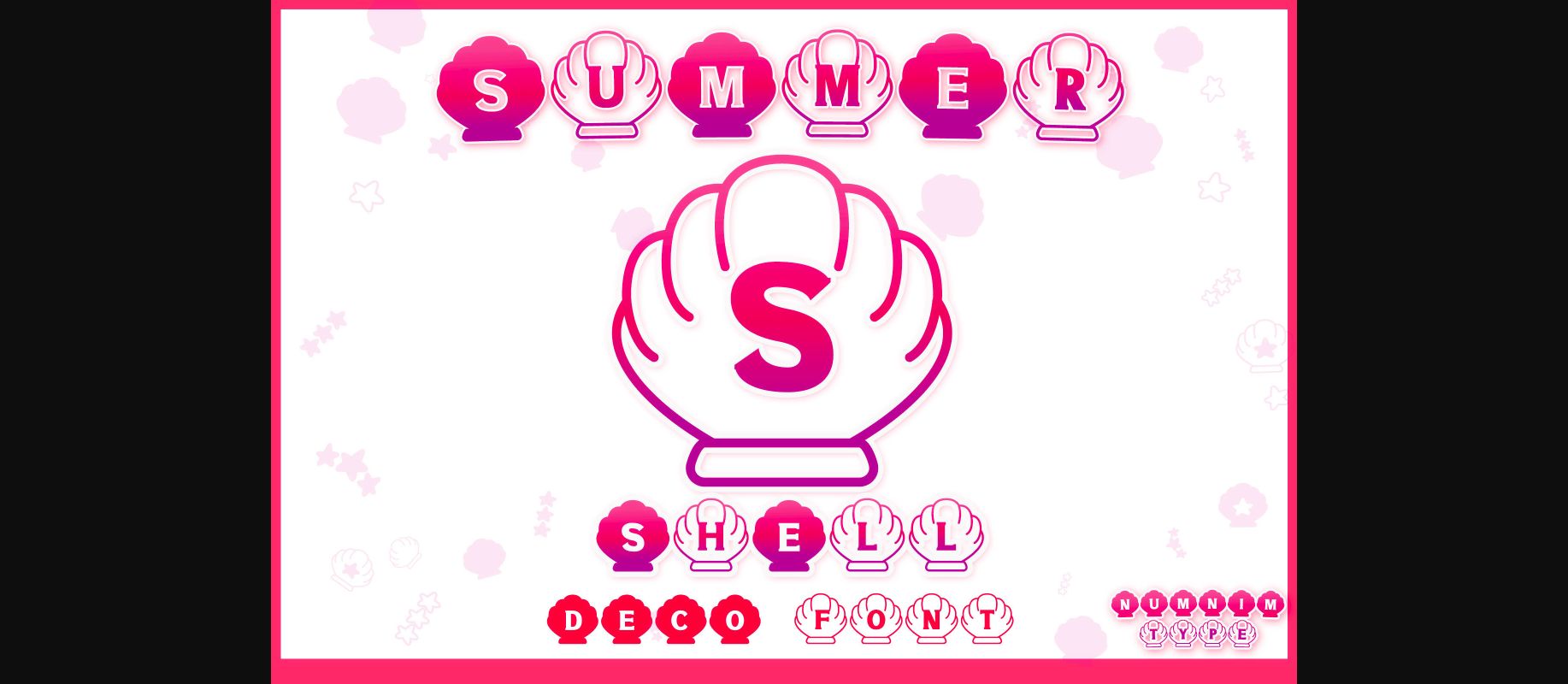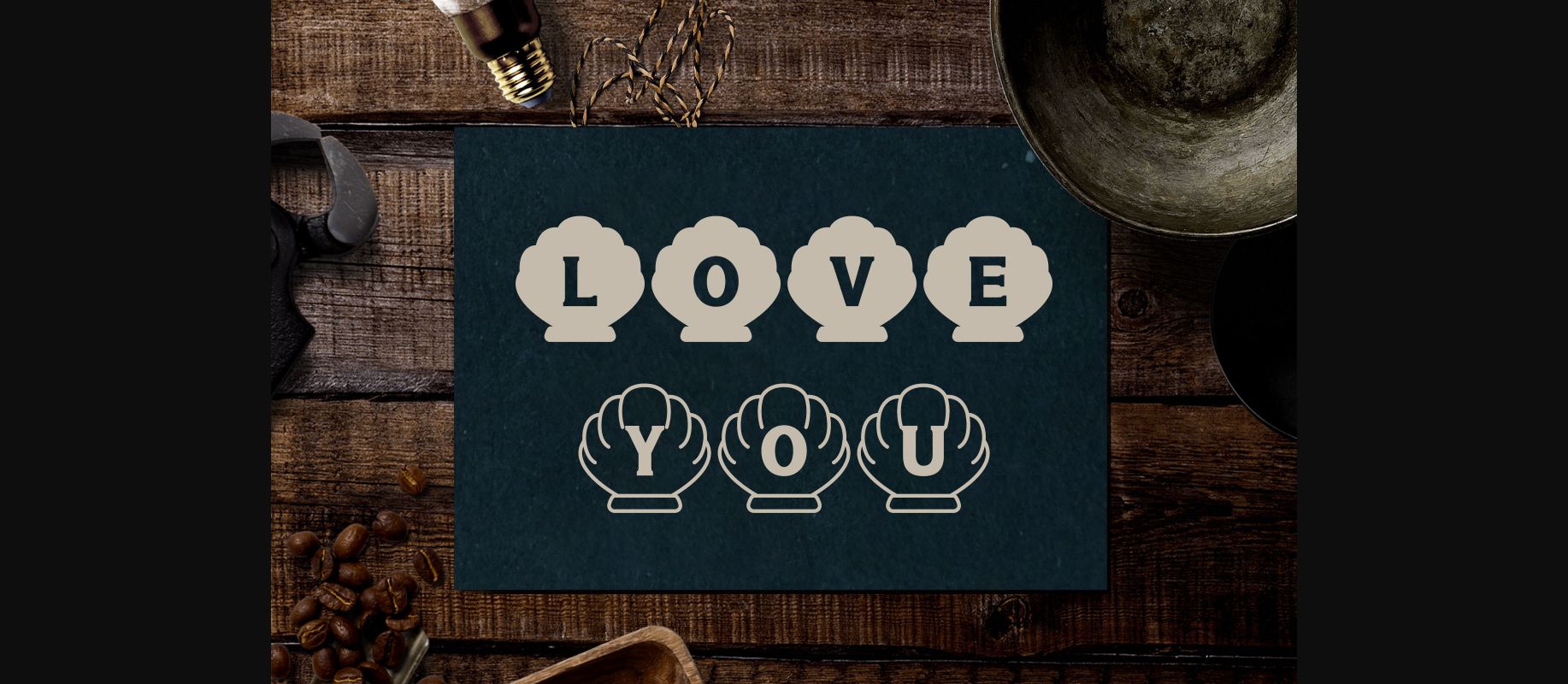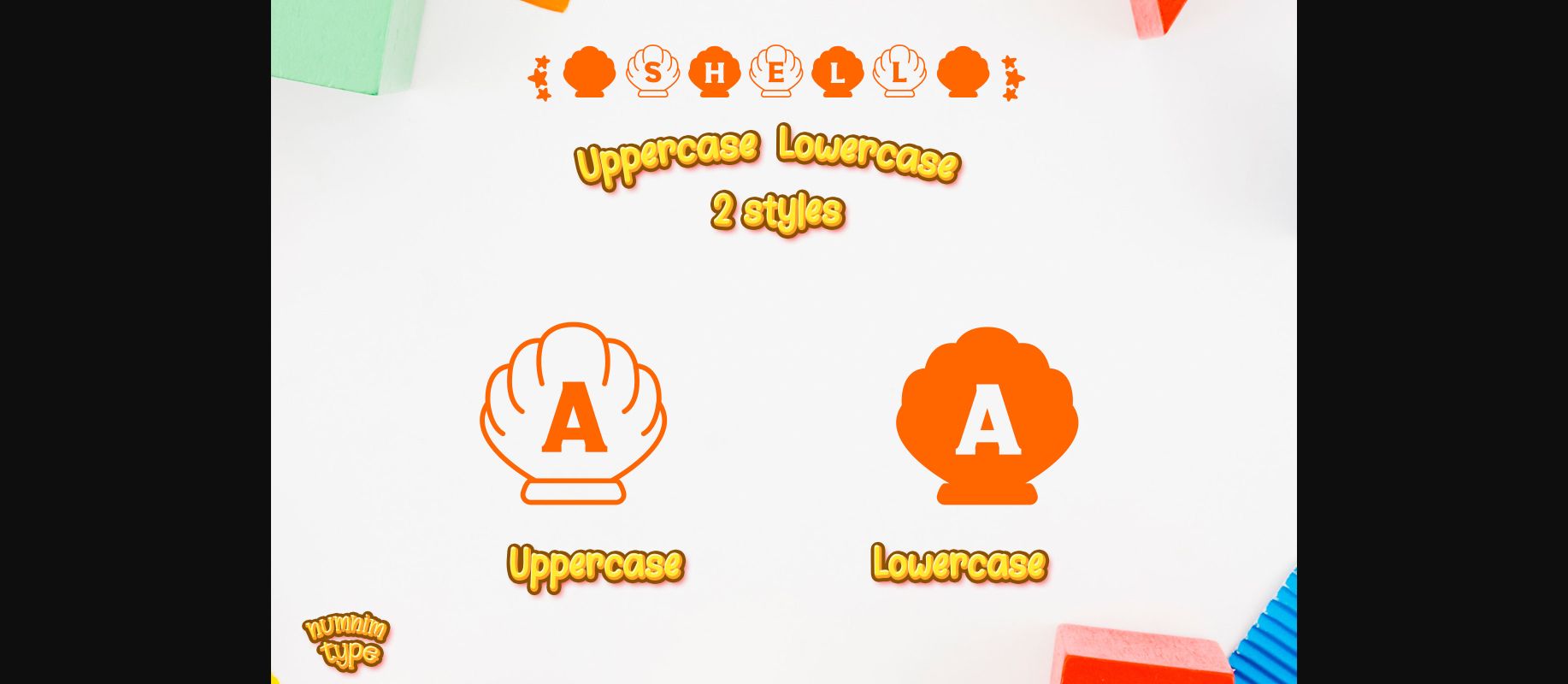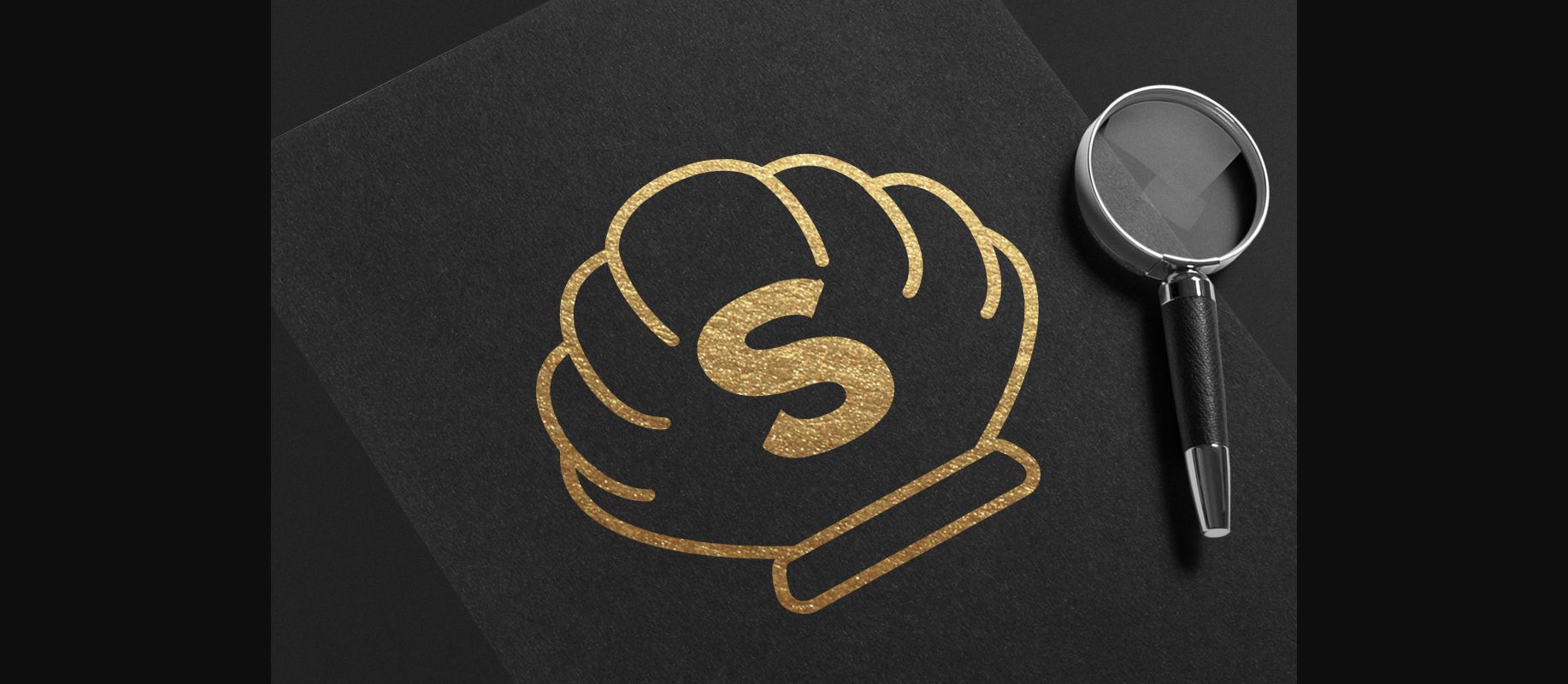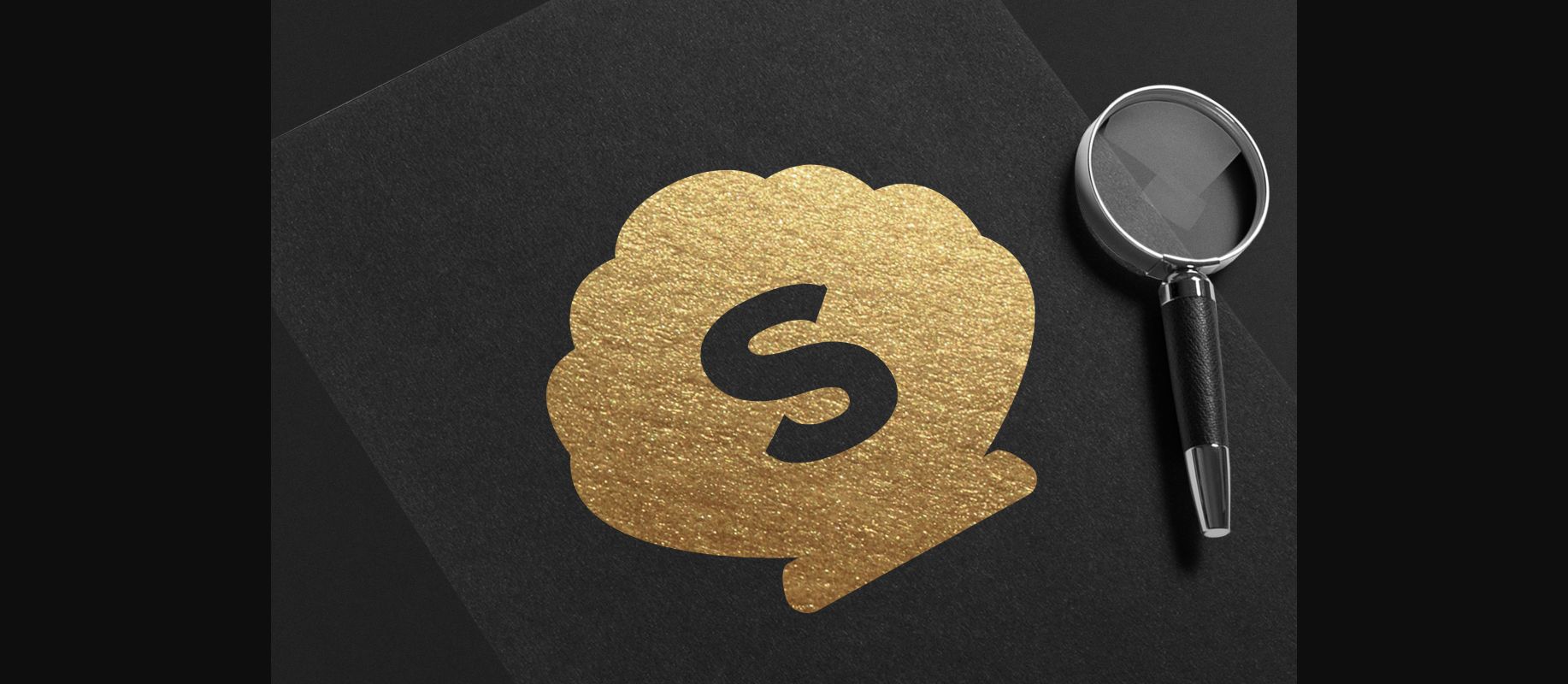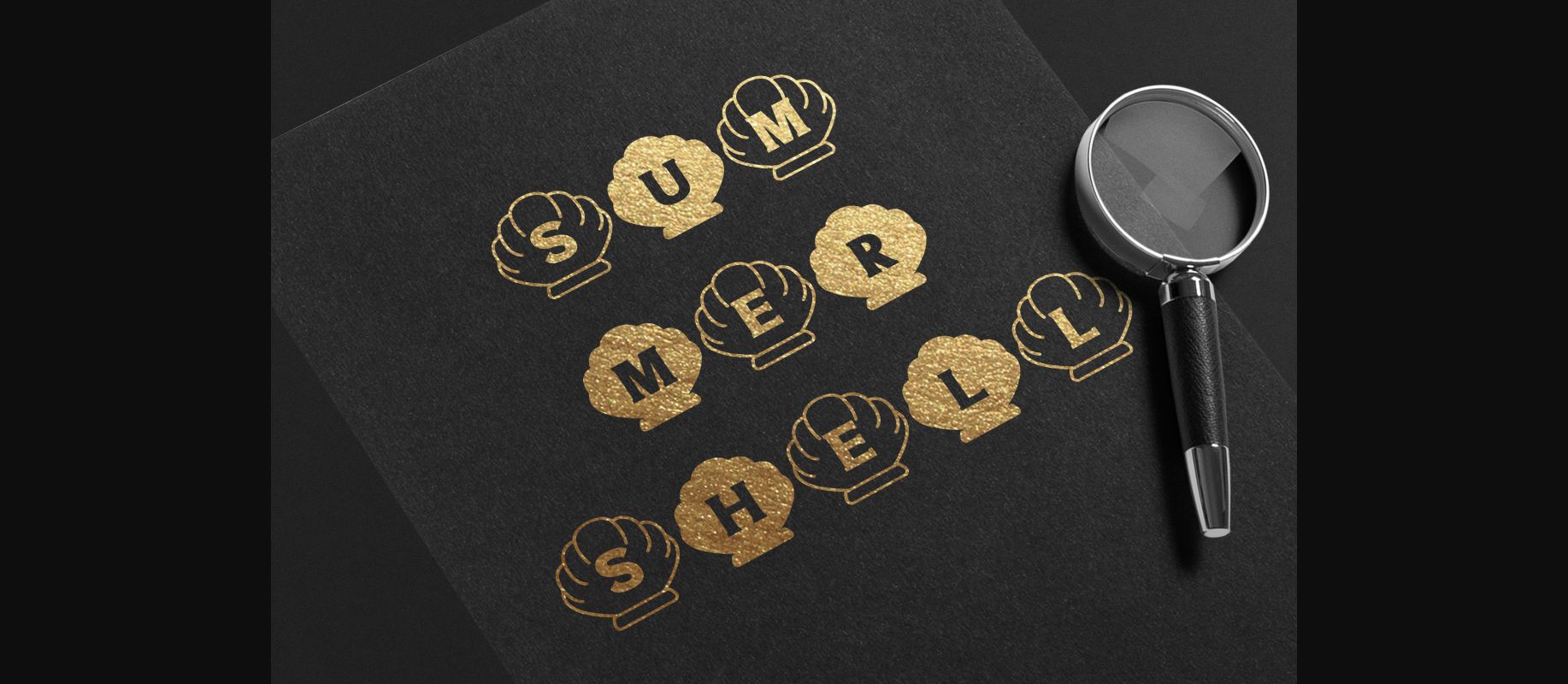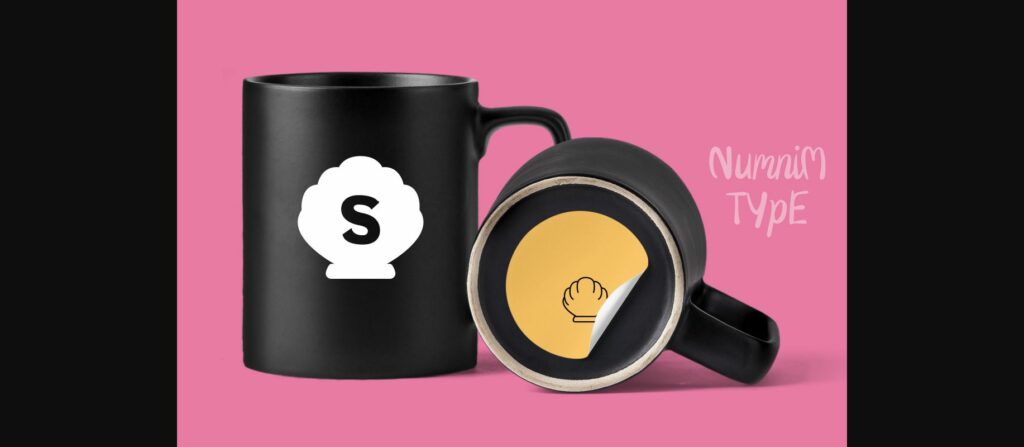
Summer Shell Font
About Summer Shell Font
Summer Shell is a cool and uniquely crafted decorative font. Its fun and playful characters make it the perfect font for stickers, mugs, t-shirts, ornaments, Summer event cards, event invitations, and many more! This font is PUA encoded which means you can access all glyphs and swashes with ease!